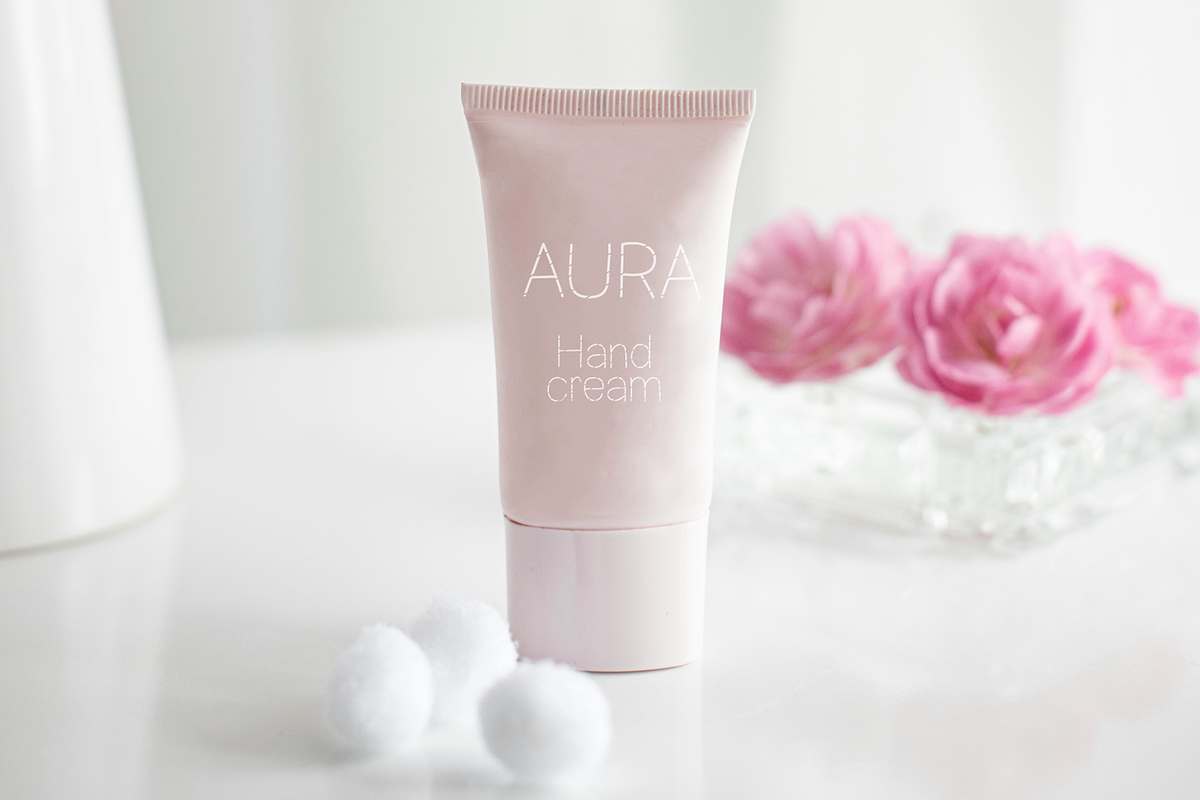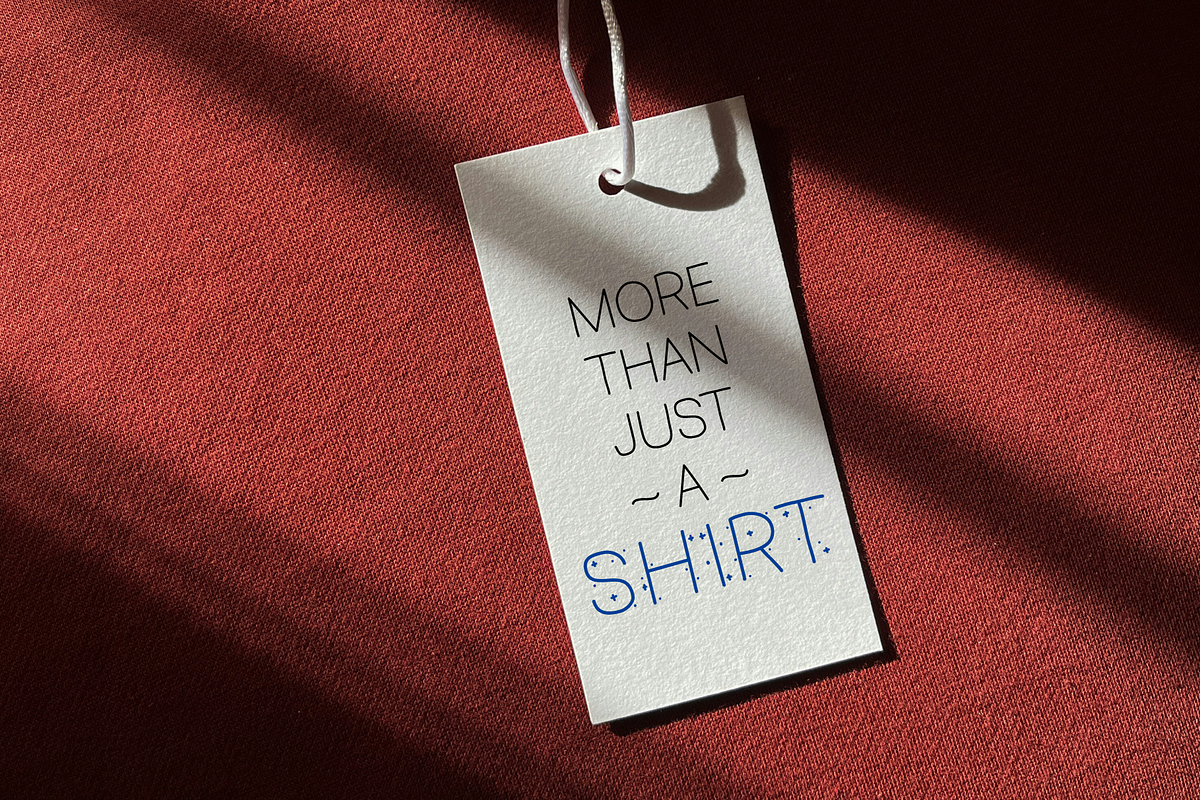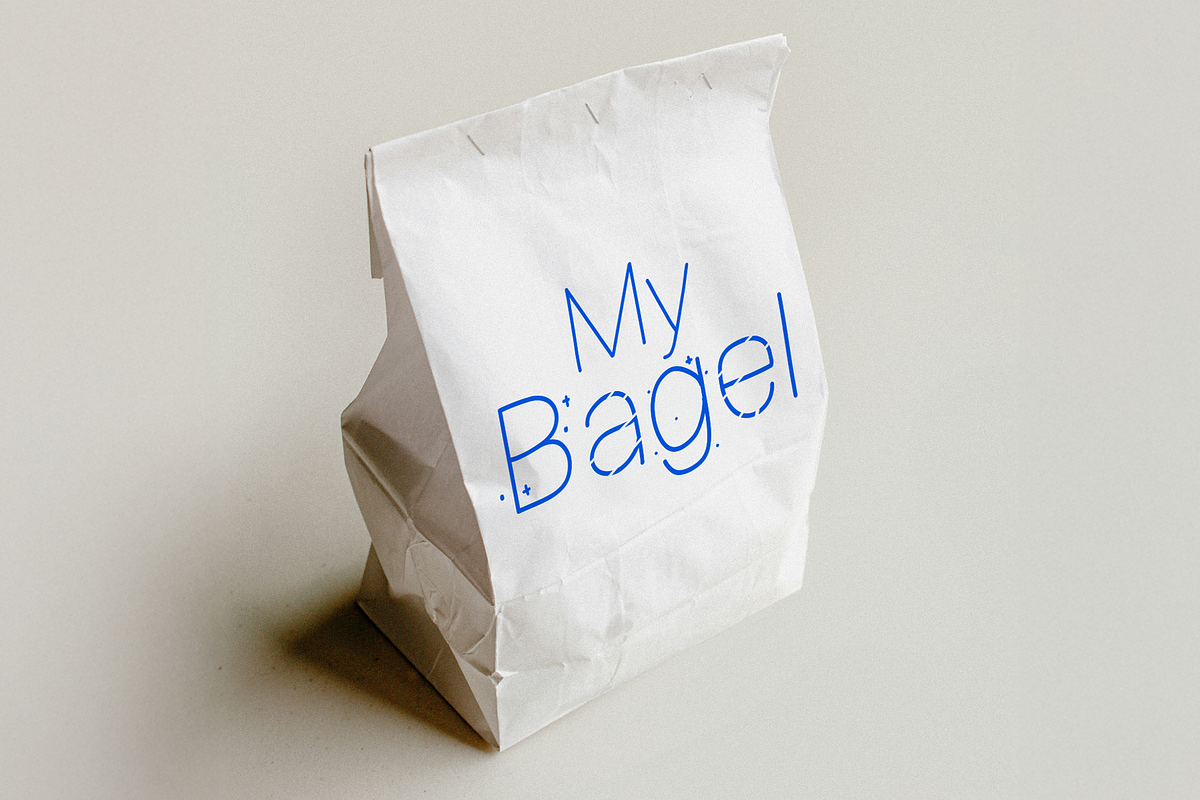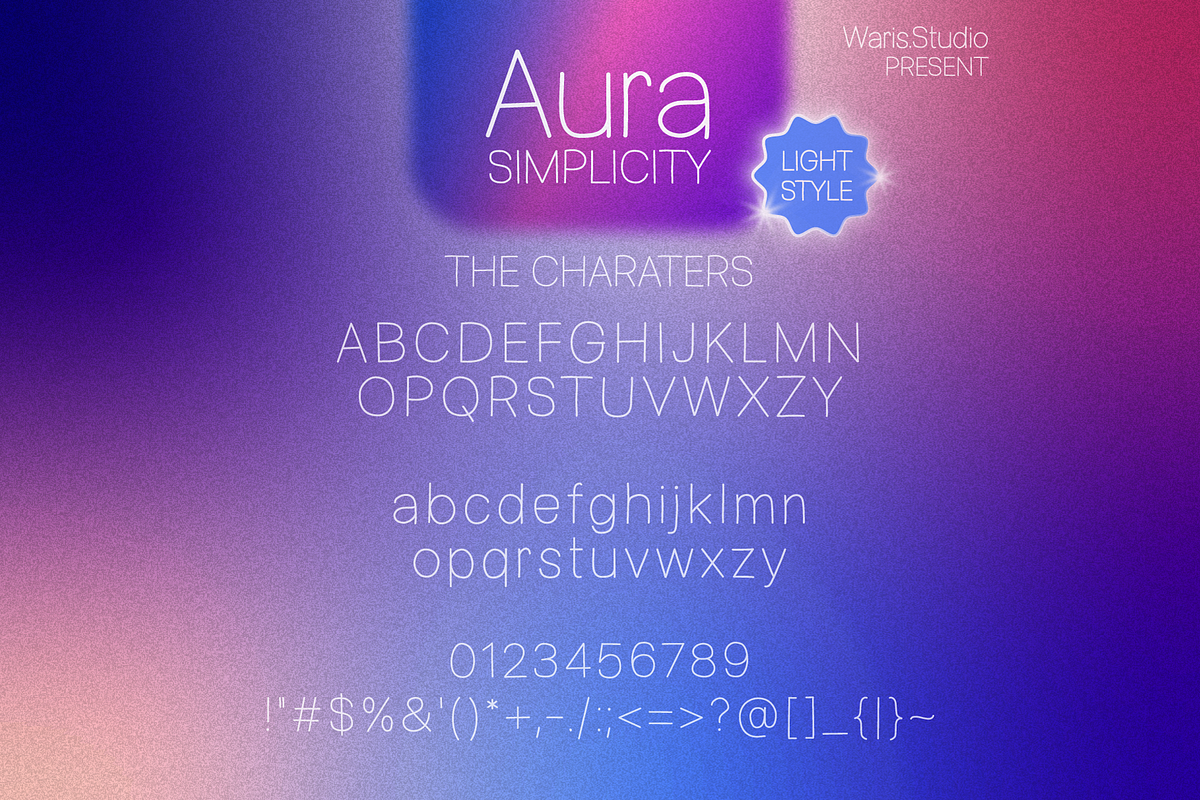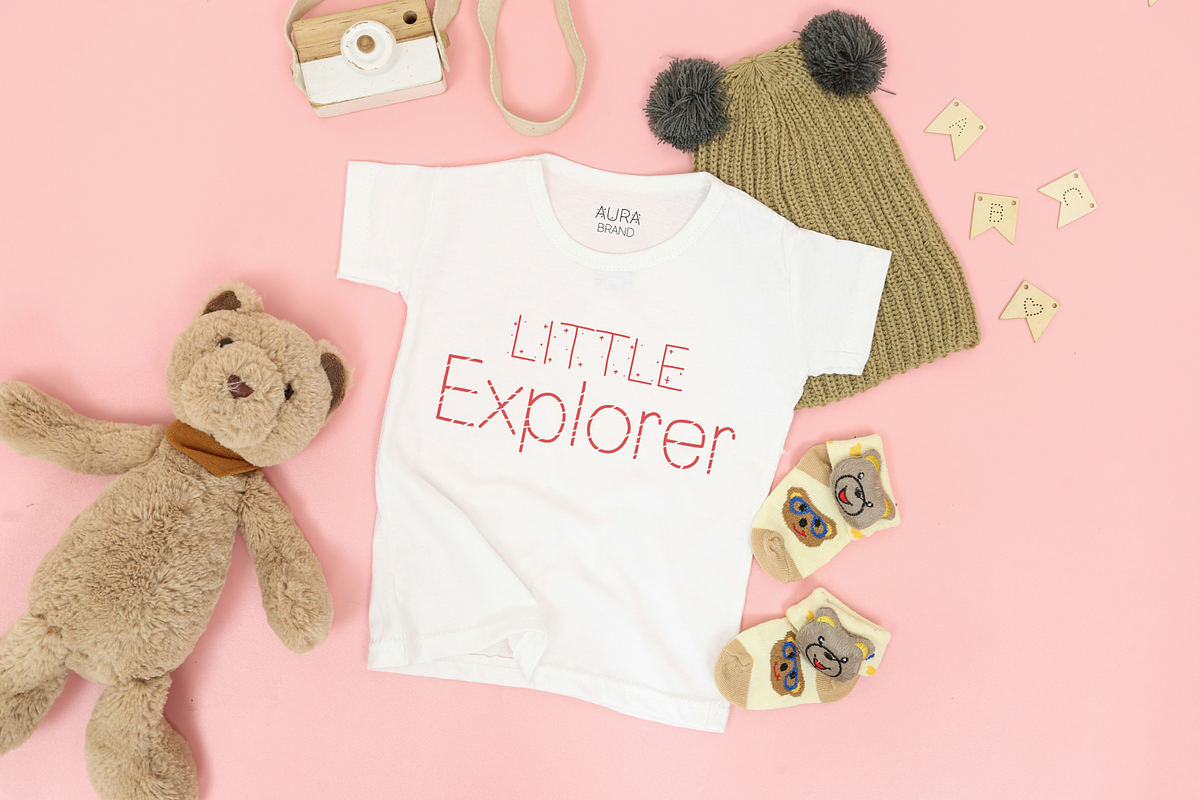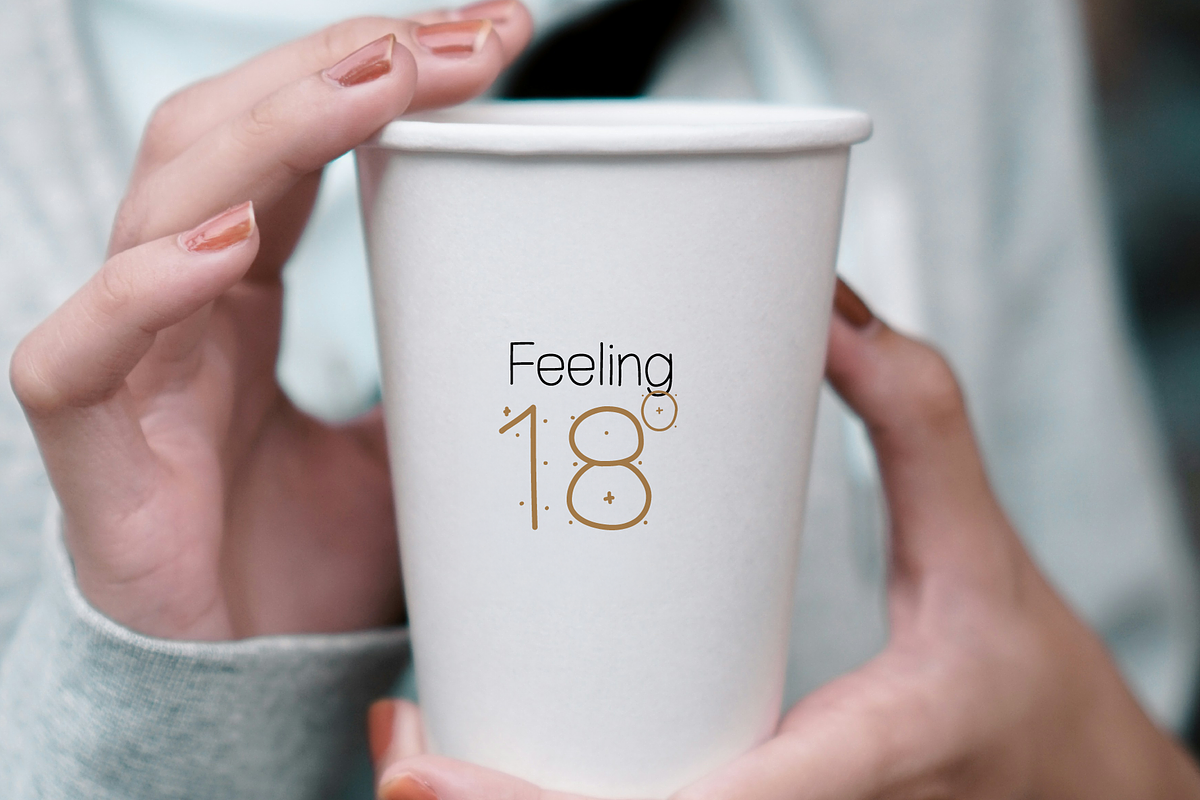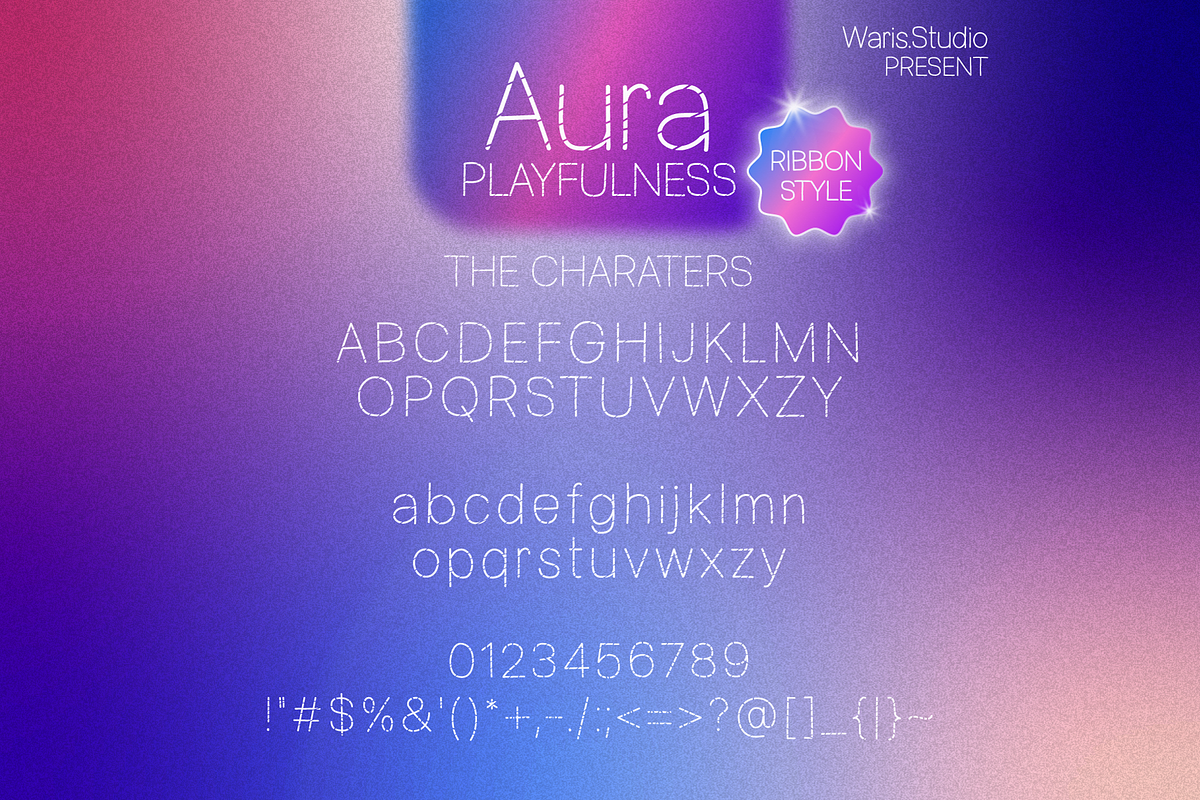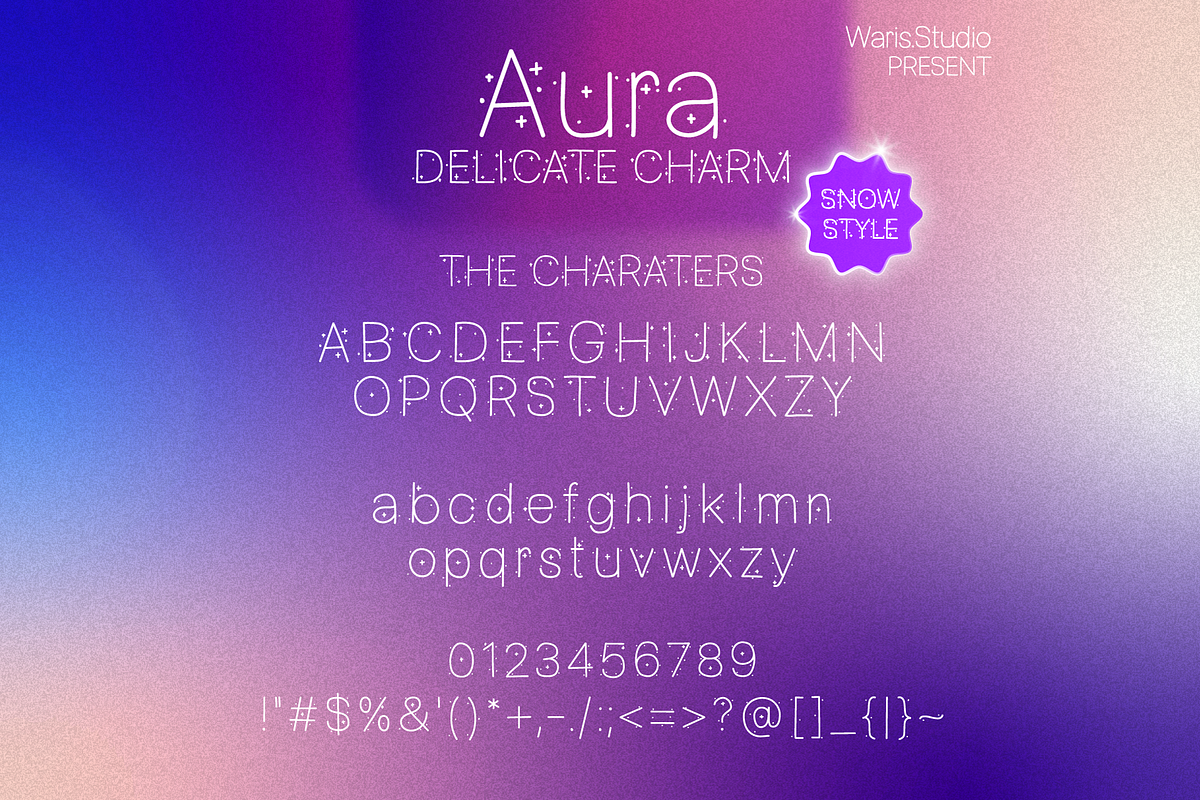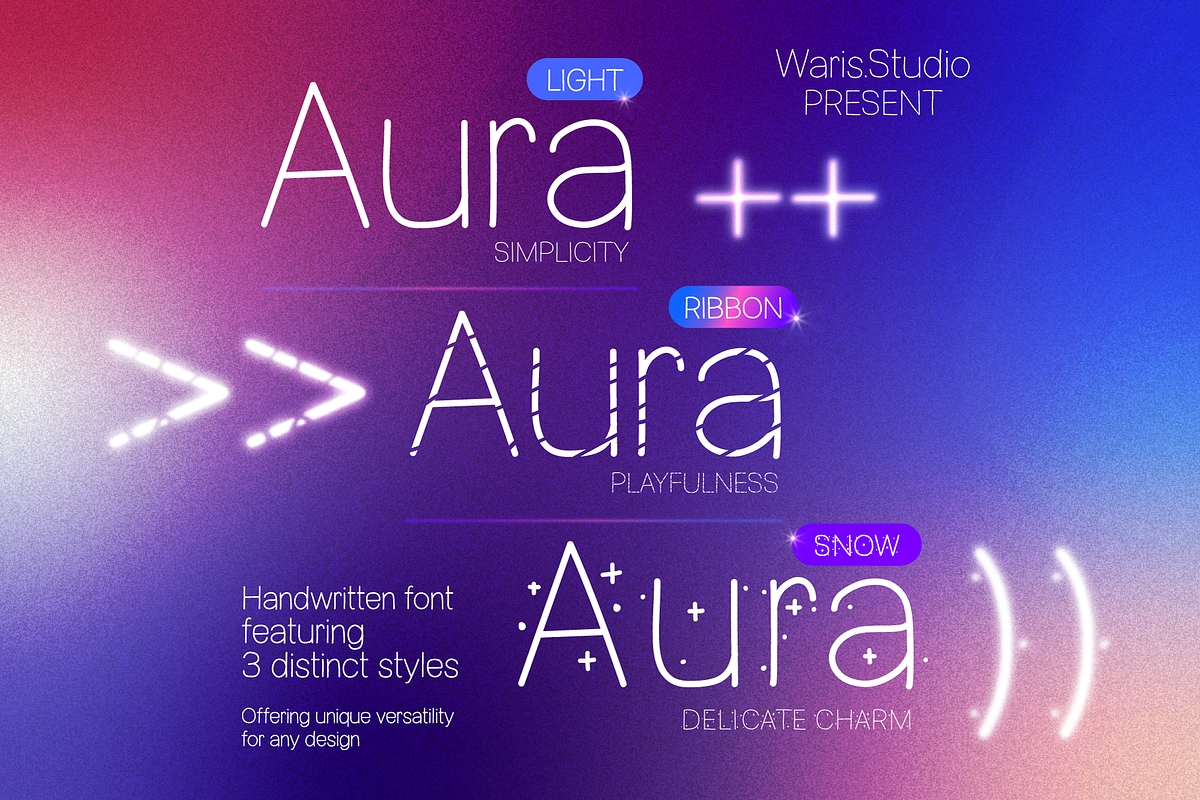
Aura Font Trio | Modern Handwritten
Unleash the charm of authentic handwriting with Aura, a versatile font trio designed to add a touch of personal elegance to your creative projects. Aura offers three distinct and beautiful styles, each crafted to provide unique visual appeal and endless design possibilities. Whether you're working on branding, stationery, social media, or digital art, Aura brings a fresh and stylish aesthetic.
What's Included in the Aura Font Trio?
+Aura Light: A delicate and airy handwritten style that offers a clean, sophisticated, and minimalist look. Perfect for elegant headlines, subtle branding, or designs where clarity and refinement are key.
+Aura Ribbon: A playful and unique style featuring charming layered effects reminiscent of a flowing ribbon. This variant adds a dynamic and whimsical touch, ideal for eye-catching titles, playful invitations, or designs that need a creative twist.
+Aura Snow: A beautifully textured style adorned with subtle, sparkling details that evoke a sense of magic and wonder. Use Aura Snow to create enchanting designs, add a dreamy touch to your visuals, or give your text a truly unique, frosted appearance.
Why Choose Aura Font Trio?
- Versatility: With three distinct styles, Aura adapts seamlessly to various design needs and moods.
- Authentic Hand-Drawn Feel: Each character is meticulously crafted to maintain the natural flow and charm of genuine handwriting.